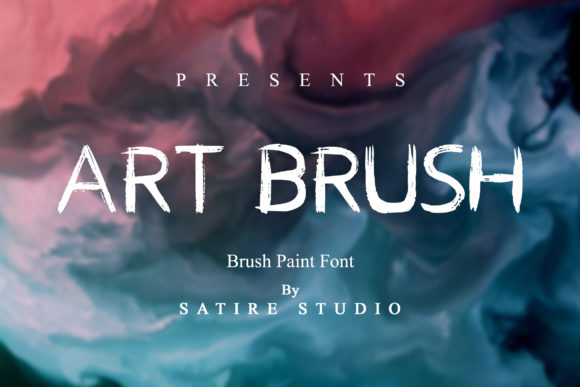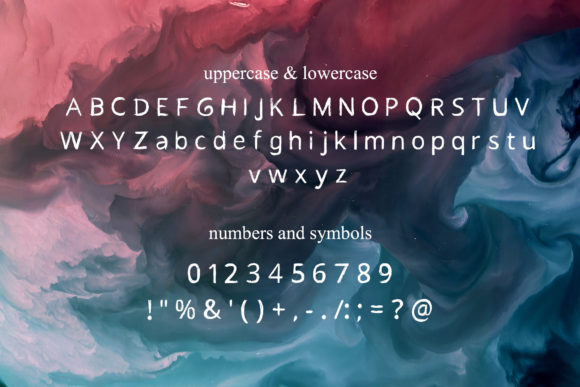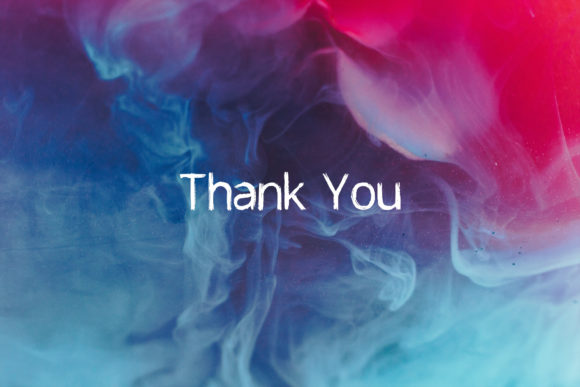
Art Brush Font
About the Art Brush Font
Discover the charm of Art Brush Font. This font is a perfect blend of modern aesthetics and classic appeal. Art Brush is a brush paint font, beautiful on invitations like greeting cards, branding materials, business cards, quotes, posters, and more!
Art Brush’s expressive, hand-painted style thrives in headlines, short text blocks, and display applications such as posters and branding elements where its unique texture adds visual interest. It’s ideal for projects needing a touch of artistic flair, like artisanal food packaging or boutique branding. However, its less-than-optimal readability makes it unsuitable for body text or user interfaces requiring extended reading.
For a balanced design, pair Art Brush with a clean sans-serif like Open Sans for body copy, creating a strong contrast between the hand-painted headline and the easily readable text. Alternatively, a classic serif like Garamond can lend a touch of sophistication and timeless elegance. Avoid pairing it with other highly textured or decorative fonts to prevent visual overload.
Art Brush projects a bold, artistic, and slightly whimsical personality, best suited for brands emphasizing handcrafted quality, creativity, and a touch of playful sophistication. It’s less appropriate for contexts demanding strict professionalism or minimalist aesthetics.